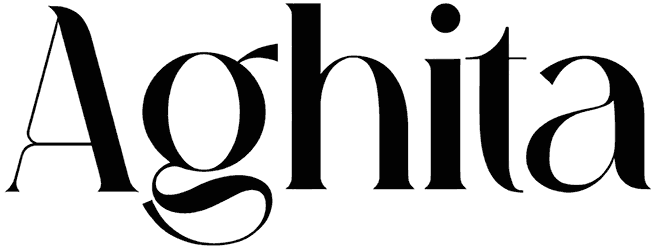
Aghita Font
What’s your opinion of using a classic and elegant font for a fashion event flyer project? Surely the final show with such a chic serif font would have these features and impress your followers. The Aghita font has the potential to give an ageless and salient face to your design.